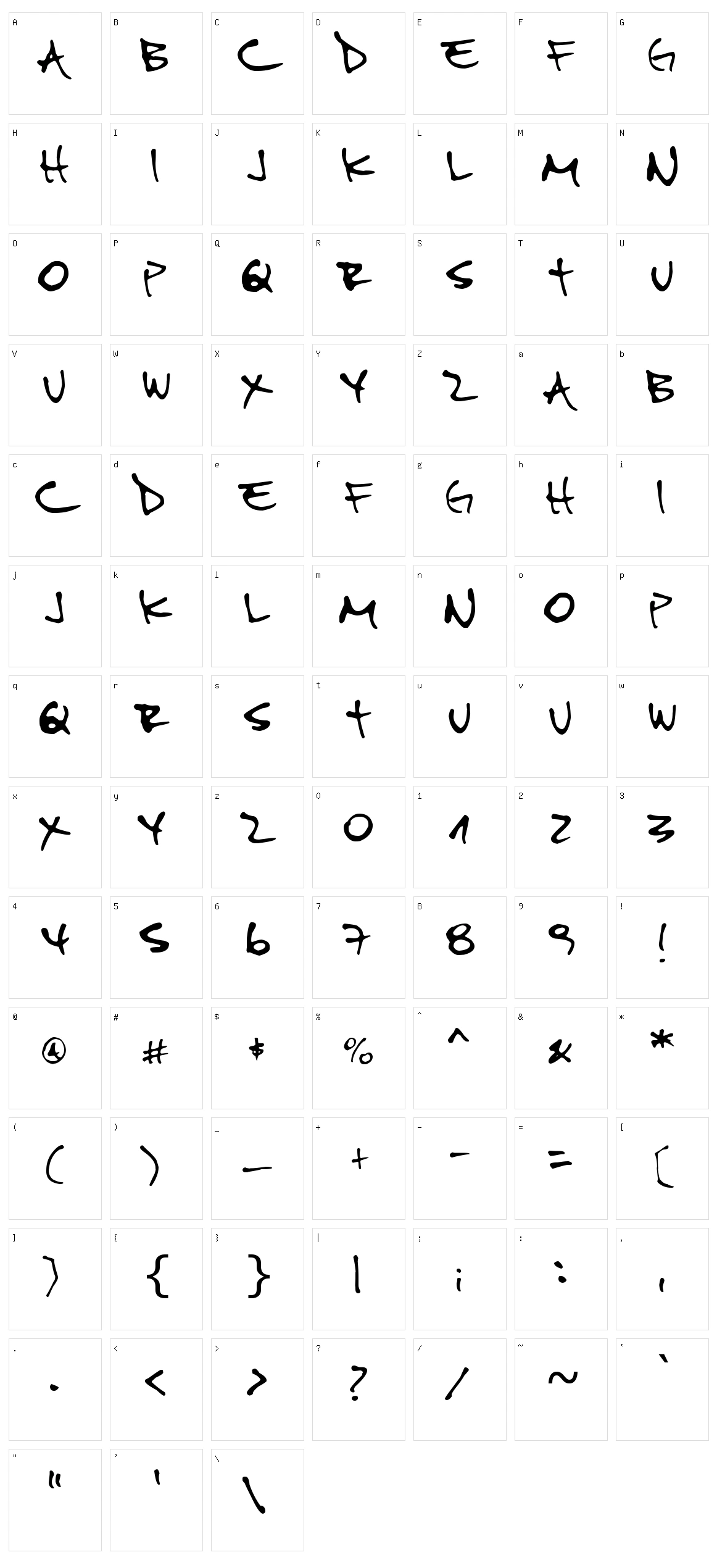
The free font Pipe Font 2 is carefully designed by Felipe Fenrisvarg, showcasing a thoughtful balance of creativity and usability and falls under the Script font style. When you download the ZIP file, it contains only 46.42 KB of font files, making it lightweight and quick to download. Please review the license details below to understand permitted usage and distribution rights. If license information is not available, we recommend using this font for personal projects only or contacting the author directly for commercial usage permissions.